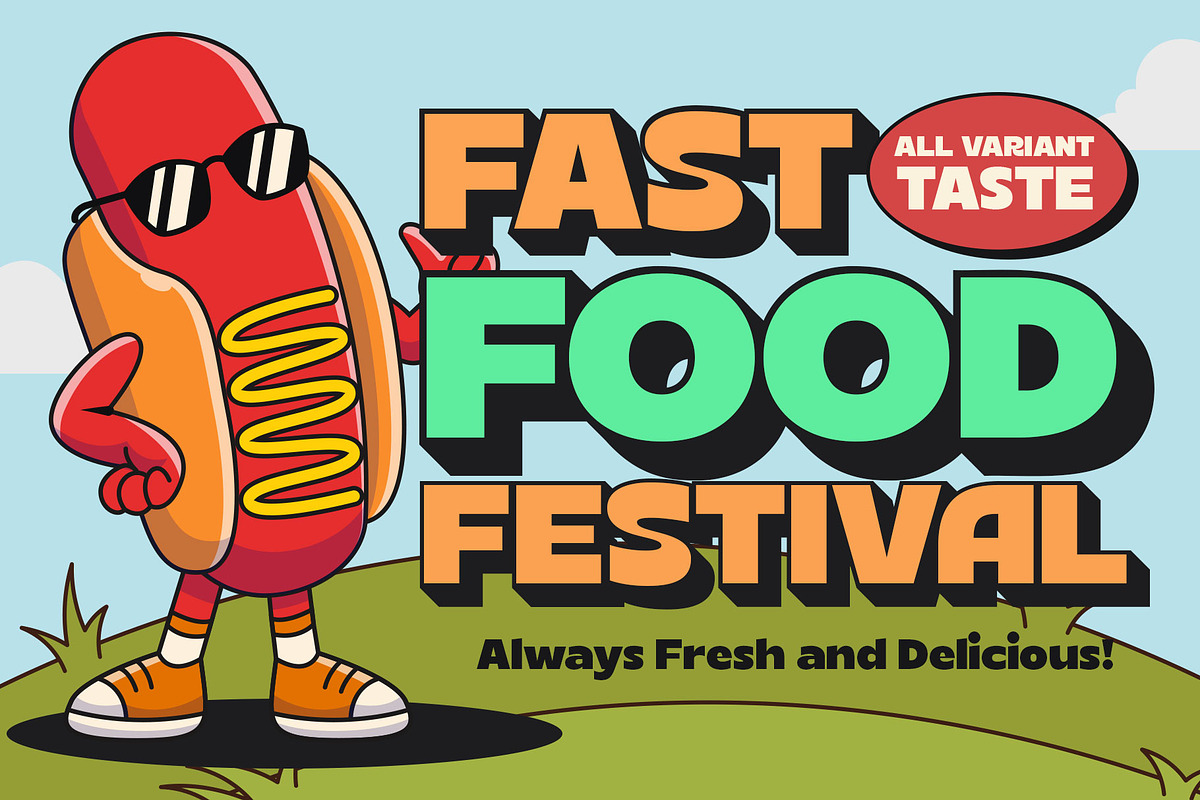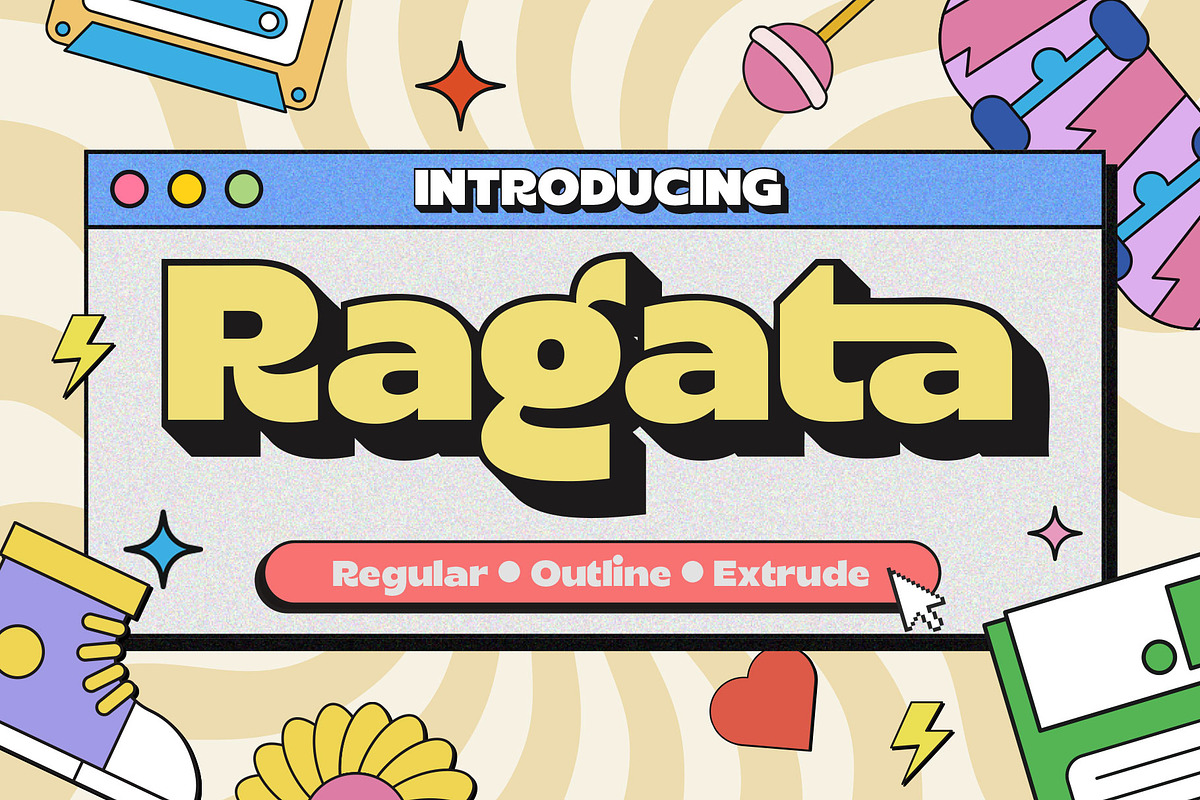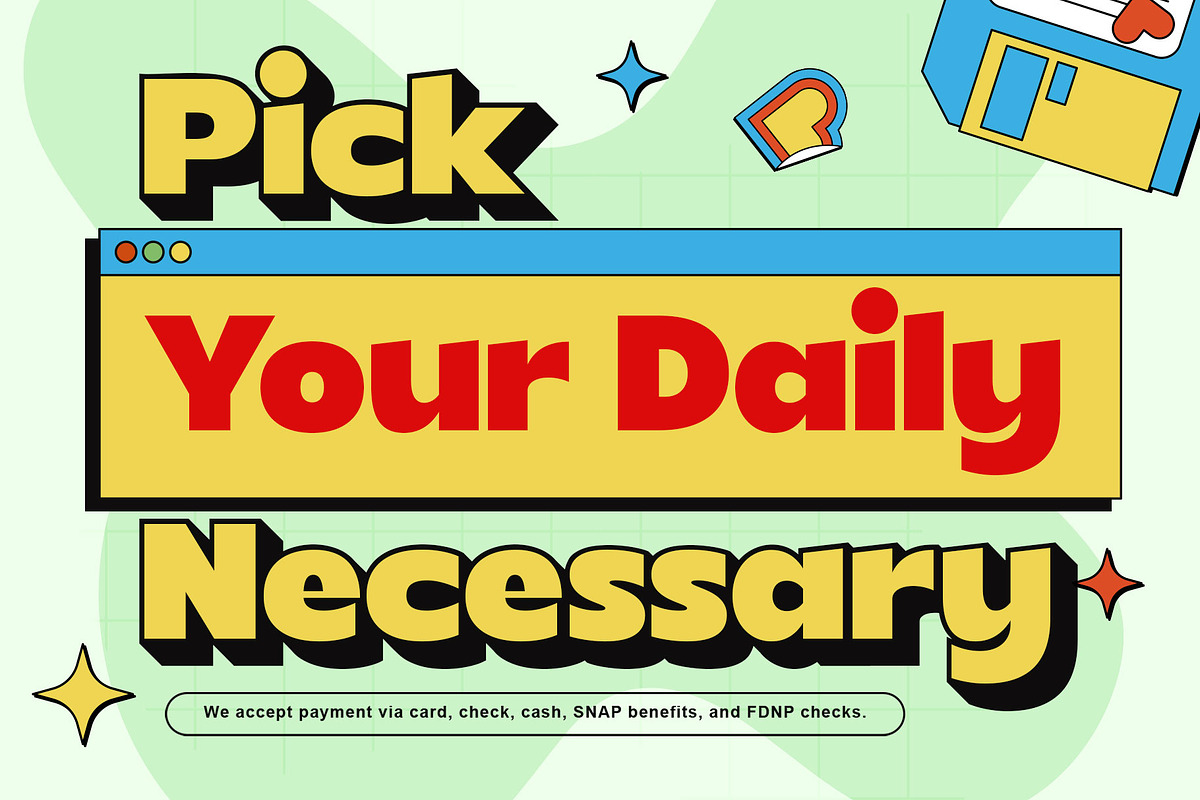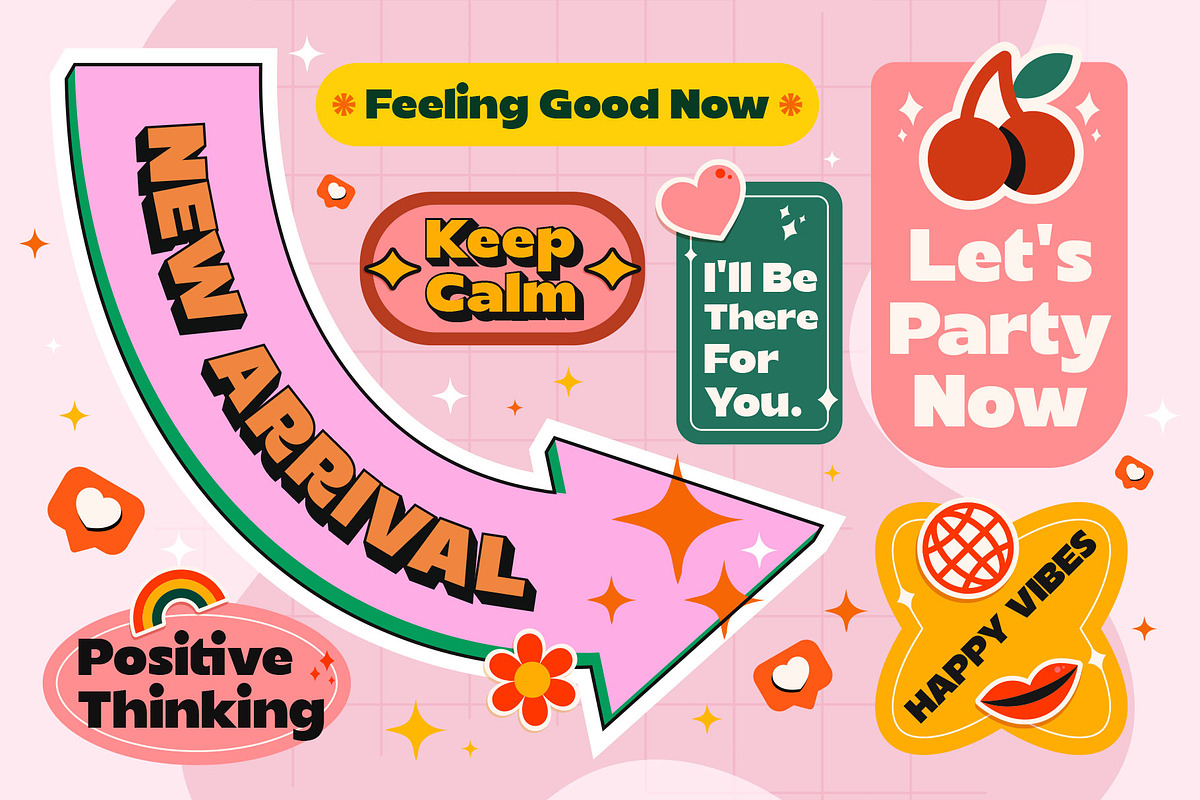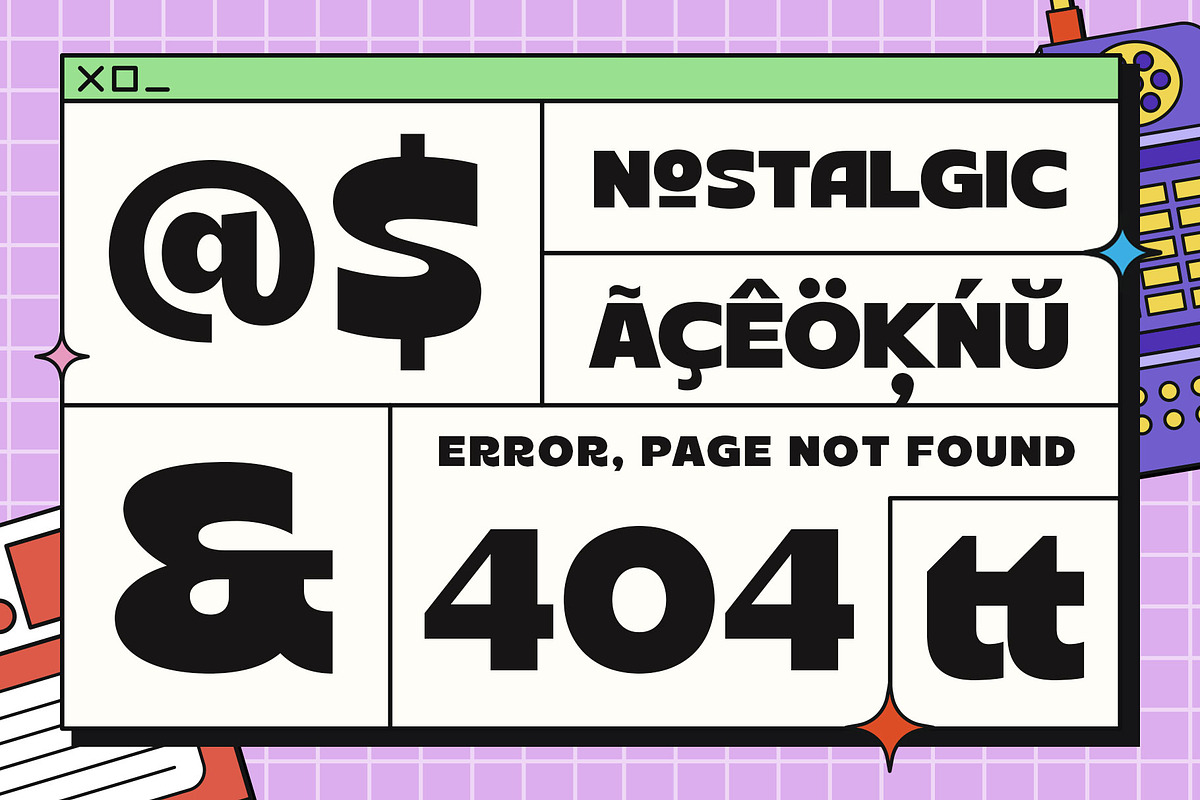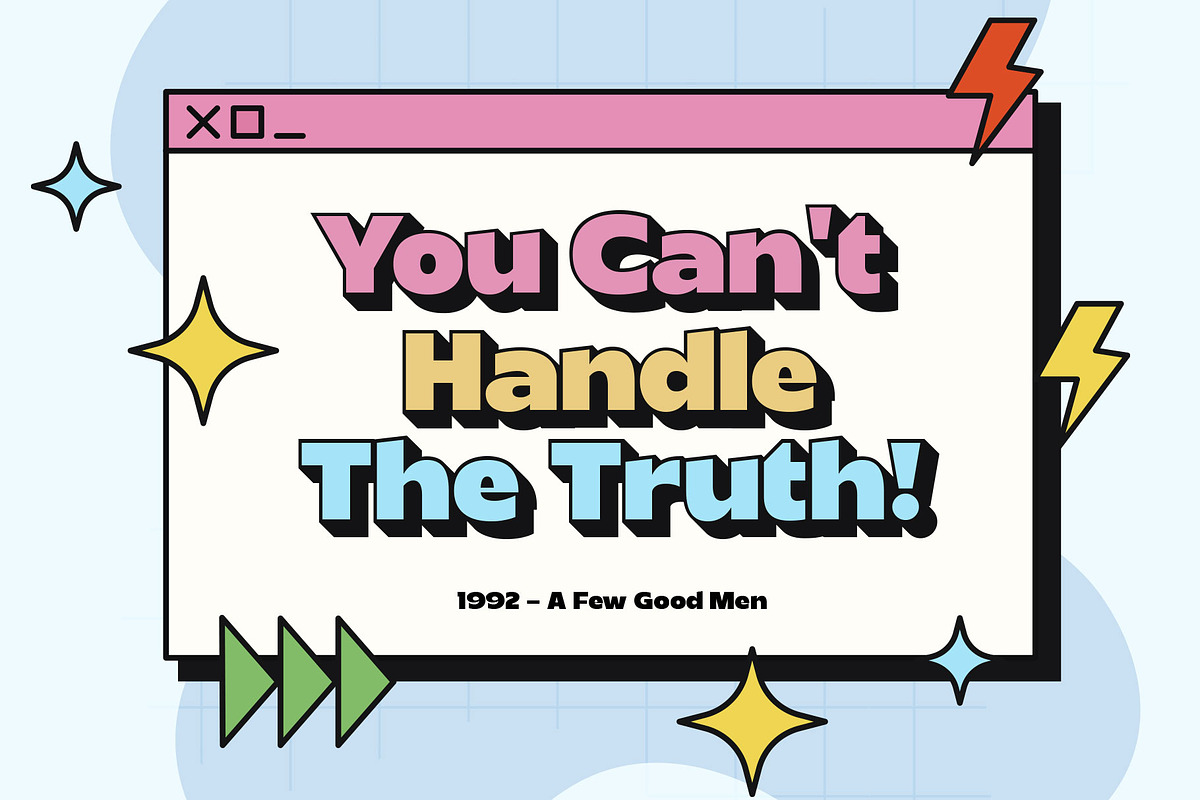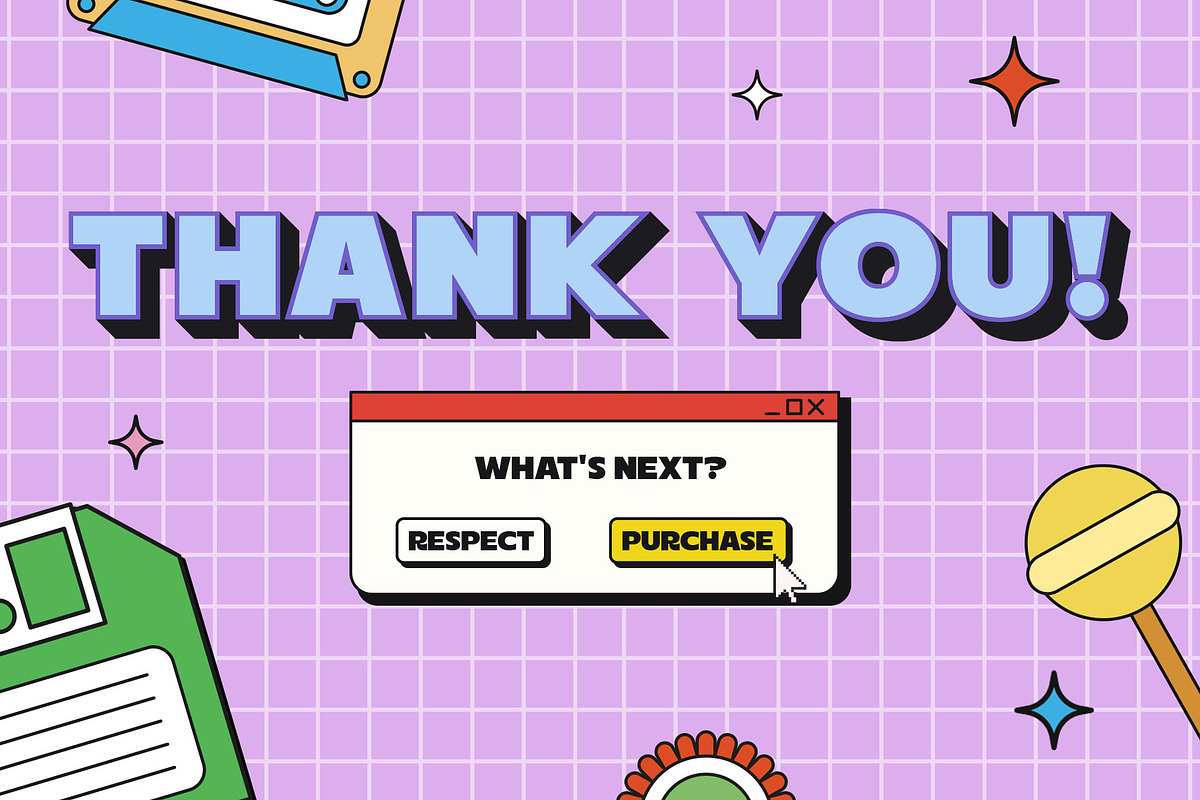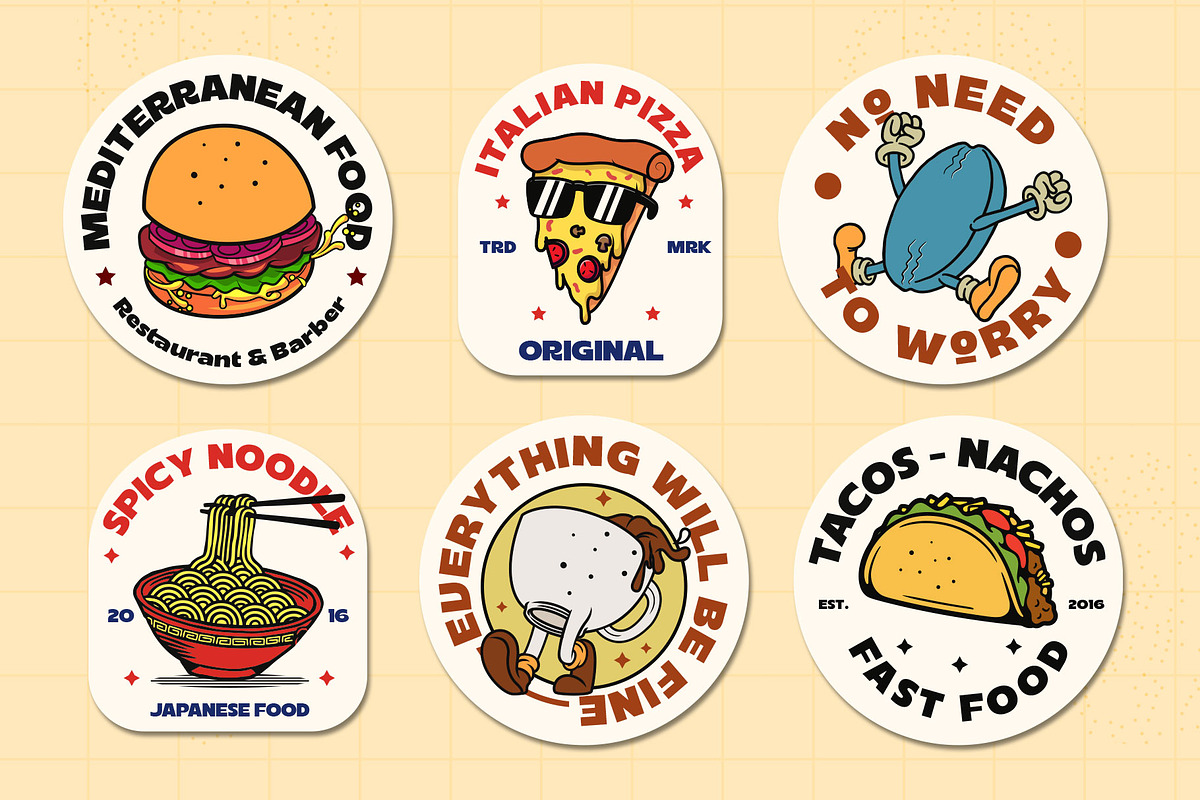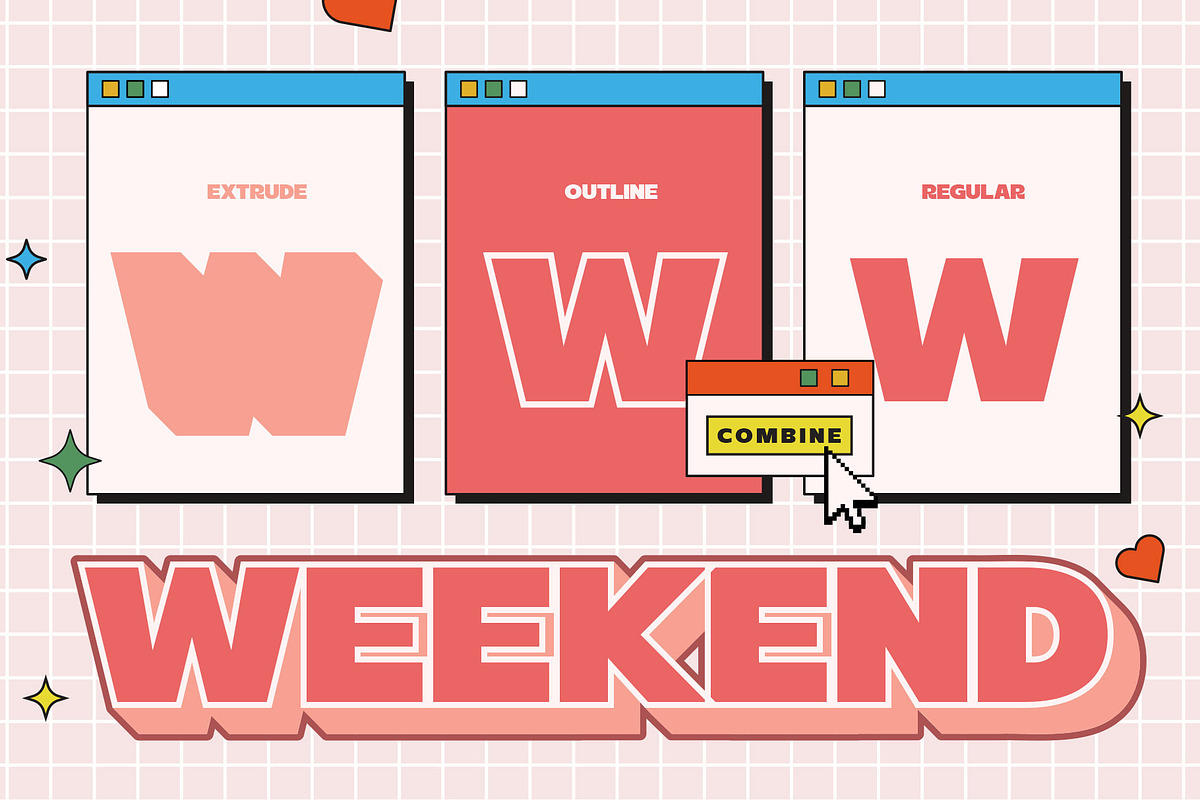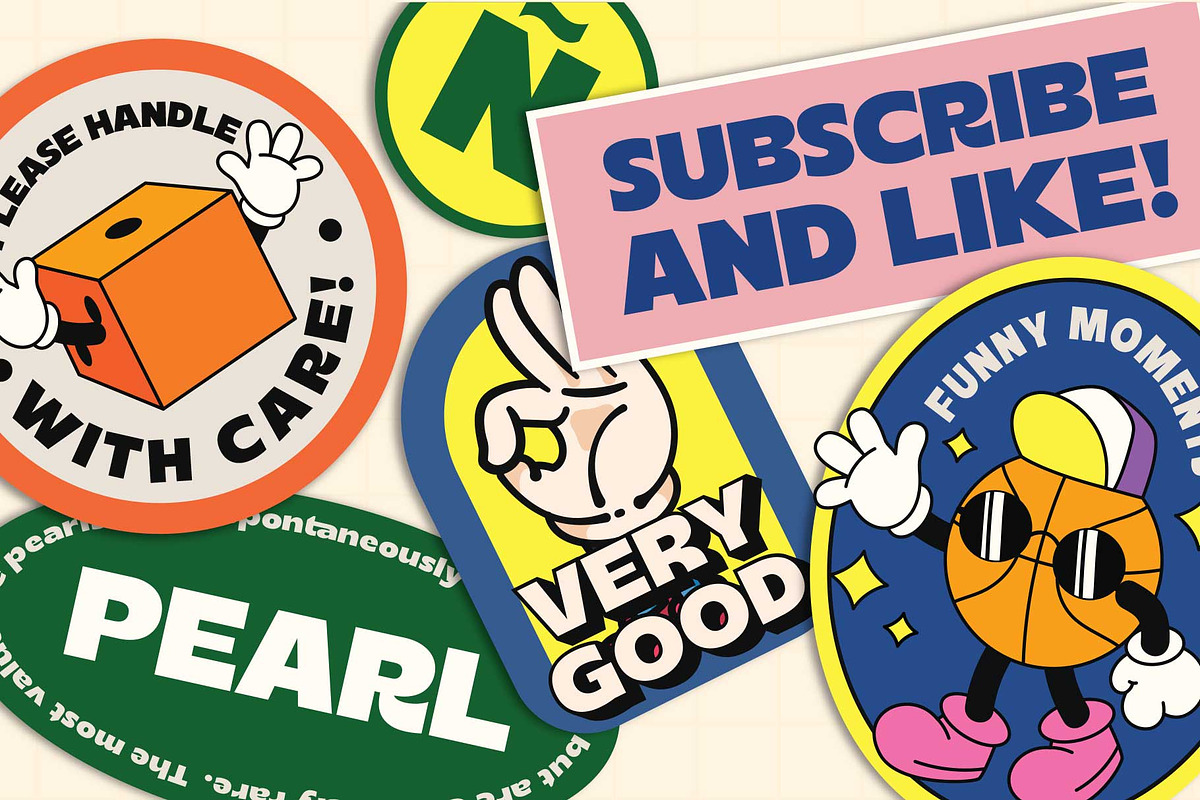
Ragata - Display Sans
Ragata is a bold and playful display font that draws inspiration from retro sans serif and vintage logo design. With its elegant yet lively character, Ragata is perfect for creating eye-catching headlines, labels, badges, logos, stickers, motion graphics, posters, and more.
The font family comes in three styles: Regular, Outline, and Extrude, which can be combined to create a unique 3D effect. In addition, Ragata is equipped with stylistic alternates and ligatures, giving you even more creative control.
Ragata also has multilingual support, making it a versatile choice for designers and creatives from all around the world. Whether you're creating a bold, retro-inspired design or something more modern and playful, Ragata is a versatile and stylish font that is sure to impress.